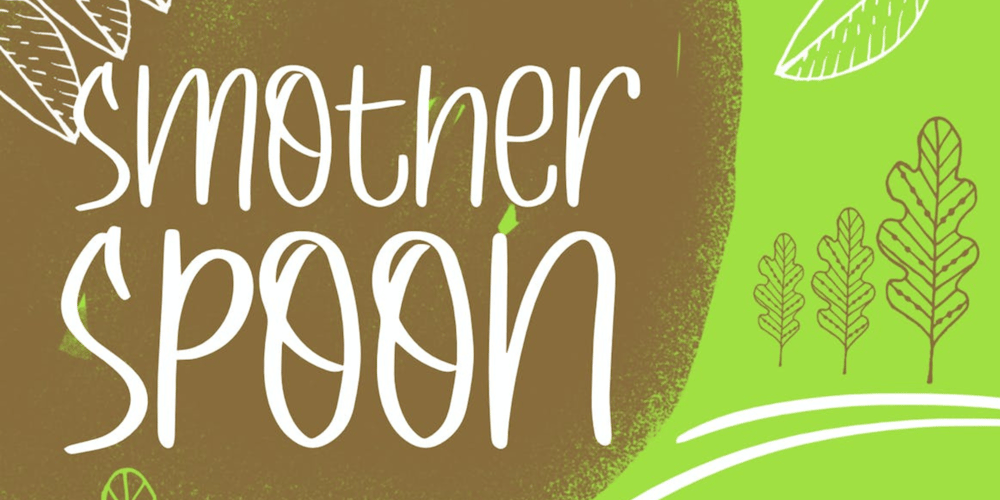
Smother Spoon
Smother Spoon font
Smother Spoon Font Family was designed by Irpan Maulana and published by Create Big Supply. Smother Spoon contains 1 styles and family package options. Introducing Smother Spoon, a remarkable font that mimics natural handwriting with its authentic and organic style. This font is designed to evoke the charm and individuality of real handwriting, instantly infusing your projects with a personal touch.With its exquisite handwritten appearance, Smother Spoon brings out the natural characteristics of your designs. Whether you’re creating invitations, logos, posters, or any other creative endeavor, this font adds a unique and artistic flair to your work.Smother Spoon offers both uppercase and lowercase letters, providing flexibility in creating captivating compositions. It also includes numbers and punctuation, ensuring seamless integration with your text. The font’s multilingual support enables you to communicate your message effectively in various languages, reaching a broader audience.Featuring PUA Encoding, Smother Spoon allows easy access to special characters and glyphs, expanding your typographic possibilities. Let your creativity flow as you embrace the authentic essence of handwritten artistry.Unleash the natural beauty of Smother Spoon in your designs and captivate your audience with its genuine handwritten appeal. From logos to branding materials and beyond, this font adds a touch of artistic elegance to every project.